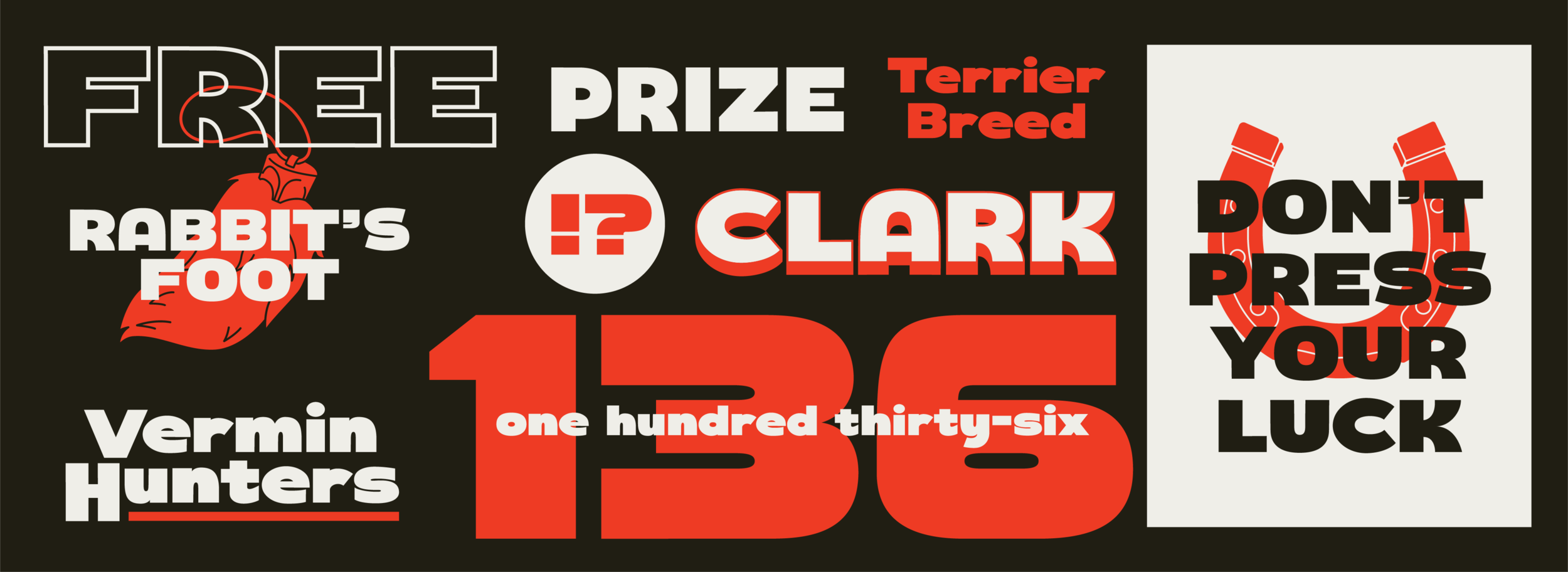
Lucky Dog
A blocky, curvy, sans serif display type with both upper and lowercase. YRT Lucky Dog’s medium-contrast characters and curvy-playfulness of its shapes provide a bold but accessible personality.